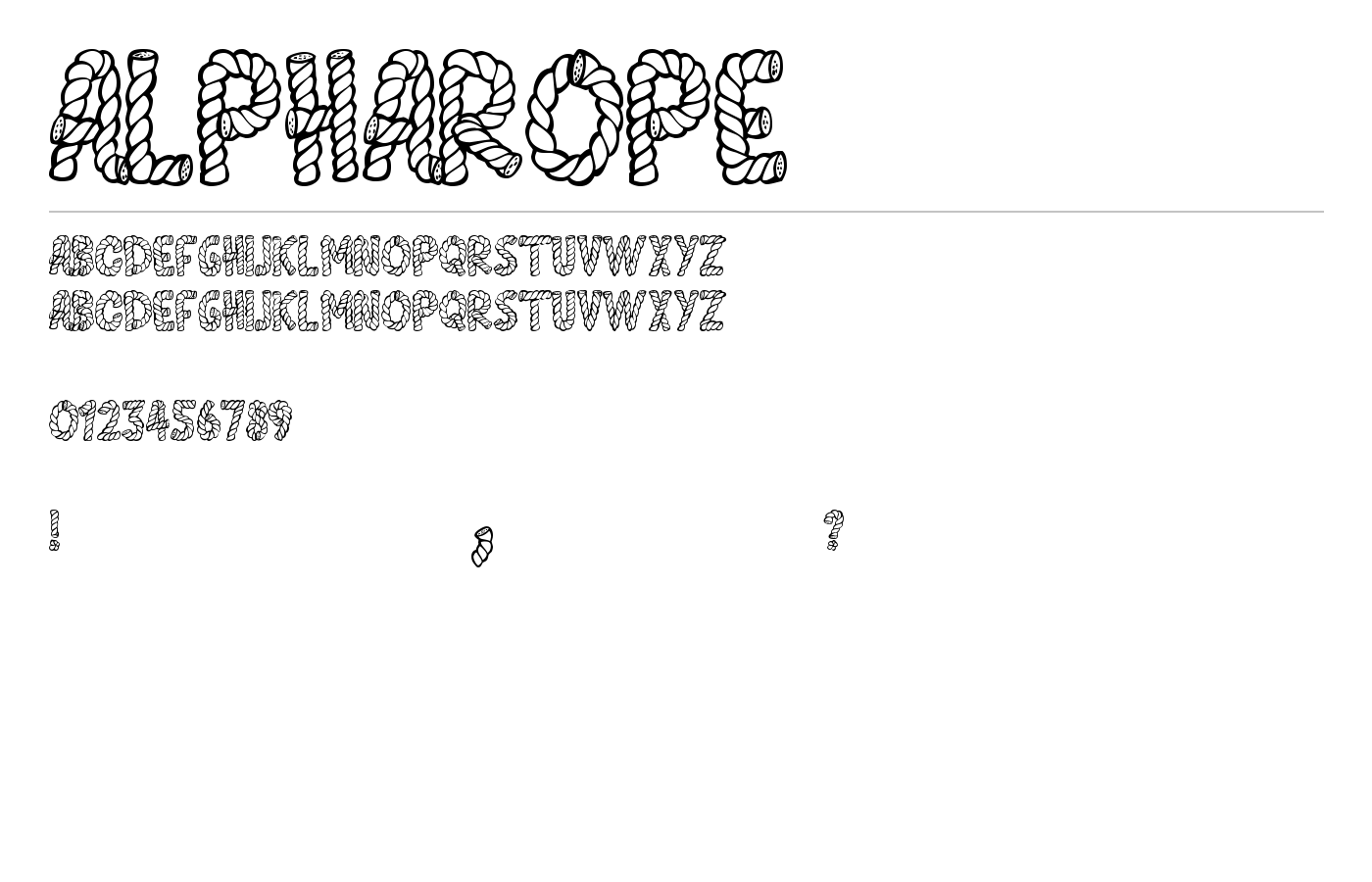
AlphaRope is a playful and decorative display font featuring uppercase letters and numbers styled to resemble twisted ropes. Its bold, textured design brings a fun and nautical vibe, making it ideal for eye-catching headlines, logos, and themed packaging, especially for brands related to adventure, outdoors, or coastal aesthetics. This font works best in large sizes where its unique rope detail can truly stand out and add character.
AlphaRope Font
About AlphaRope Font